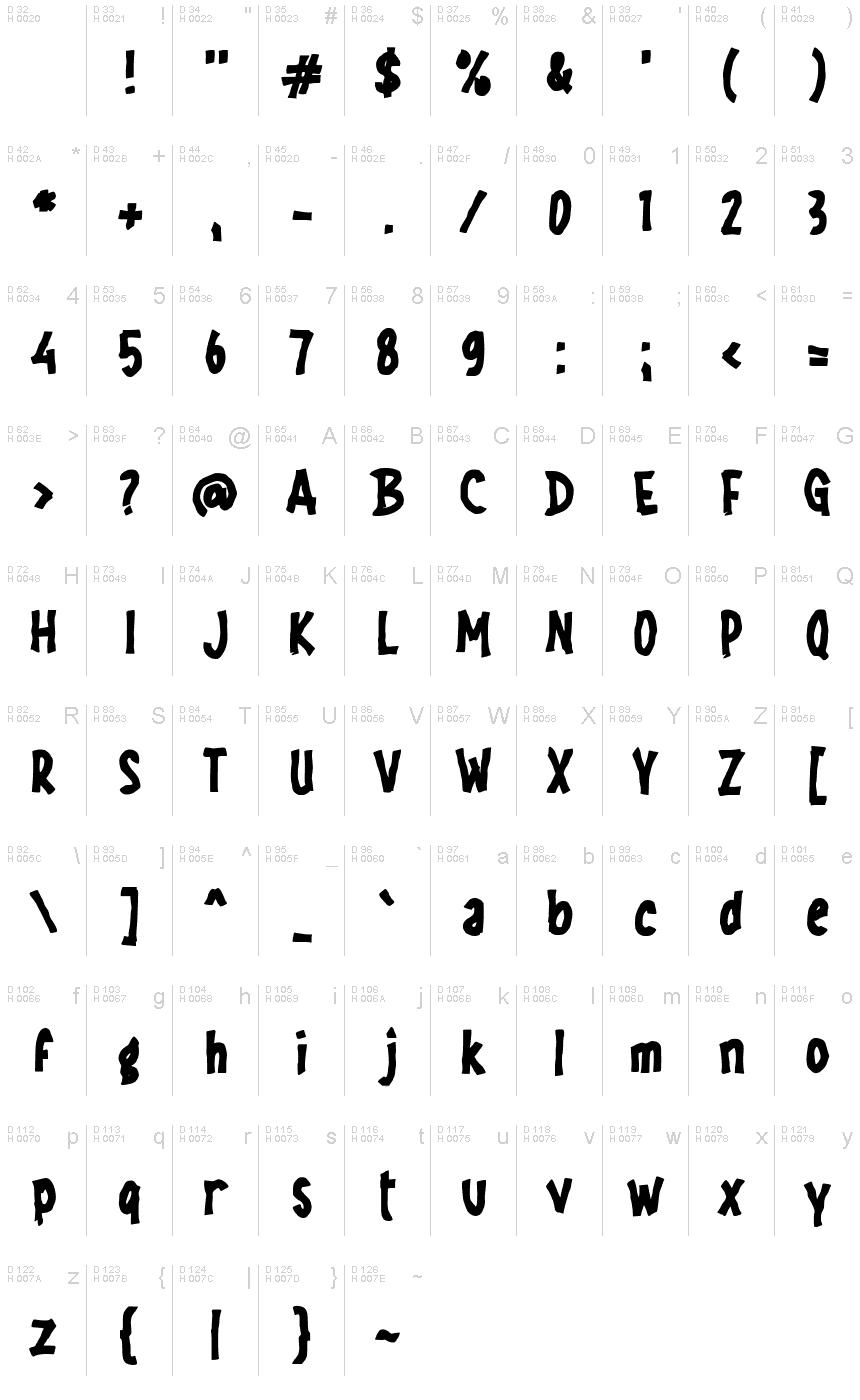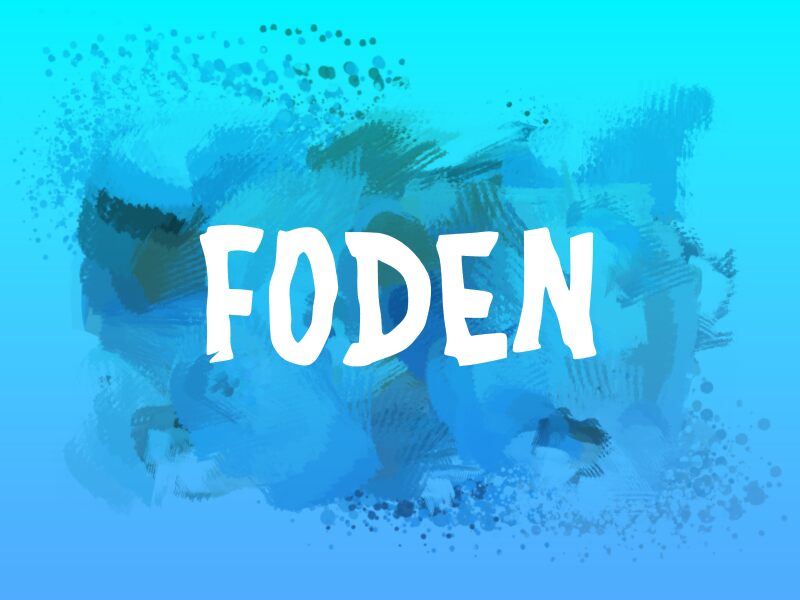
FODEN
Foden, a bold and condensed display font by wep, is here to make a statement. With its distorted style, Foden adds an edgy touch to any project it graces.
Ideal for album covers, streetwear branding, and eye-catching posters, this typeface demands attention with its powerful presence. Its unique design captures the essence of urban culture and street art, making it perfect for rebellious campaigns that aim to stand out from the crowd.
Let Foden take your designs to the next level with its captivating and unconventional appeal.
Ideal for album covers, streetwear branding, and eye-catching posters, this typeface demands attention with its powerful presence. Its unique design captures the essence of urban culture and street art, making it perfect for rebellious campaigns that aim to stand out from the crowd.
Let Foden take your designs to the next level with its captivating and unconventional appeal.